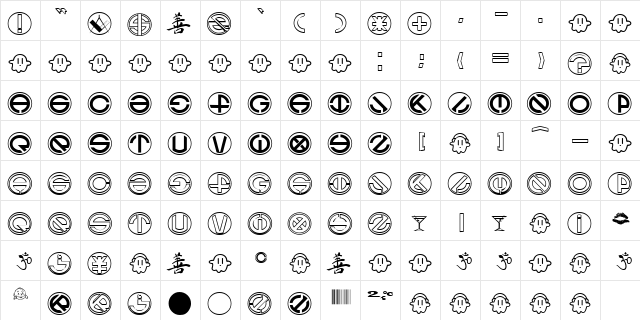
Ghost Regular Font Preview
Ghost Regular
Ghost Regular Font Details
| Foundry | Ghost Font Foundry |
| Designer | Zane Townsend |
Design Context for Ghost Typeface
Ghost is a composed and adaptable typeface that performs quietly and consistently across a wide range of design contexts.